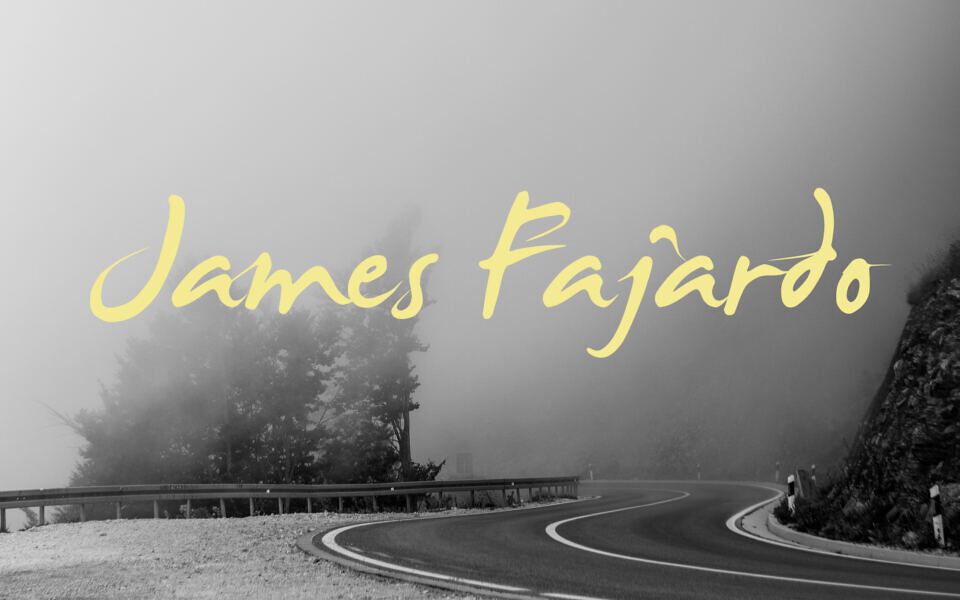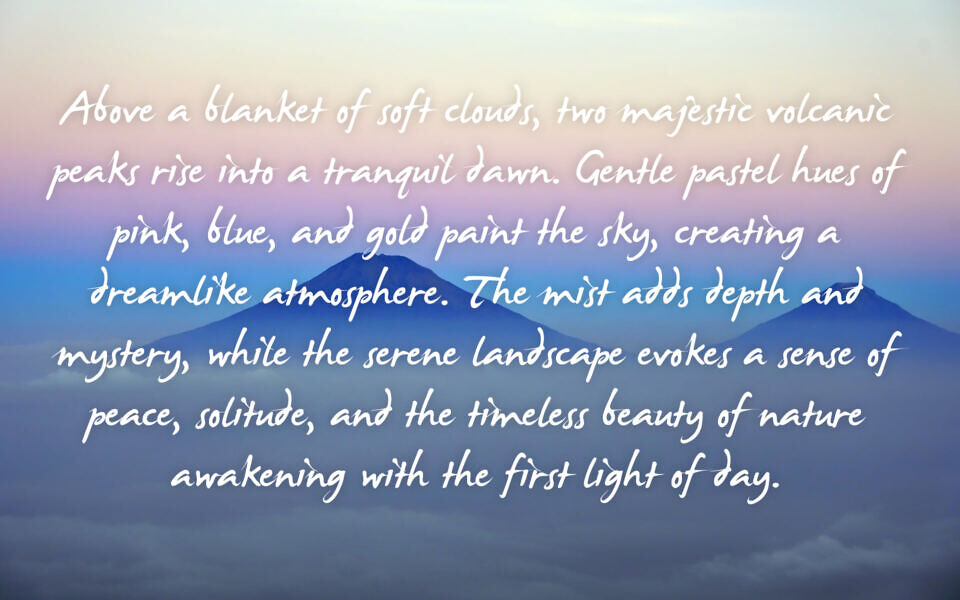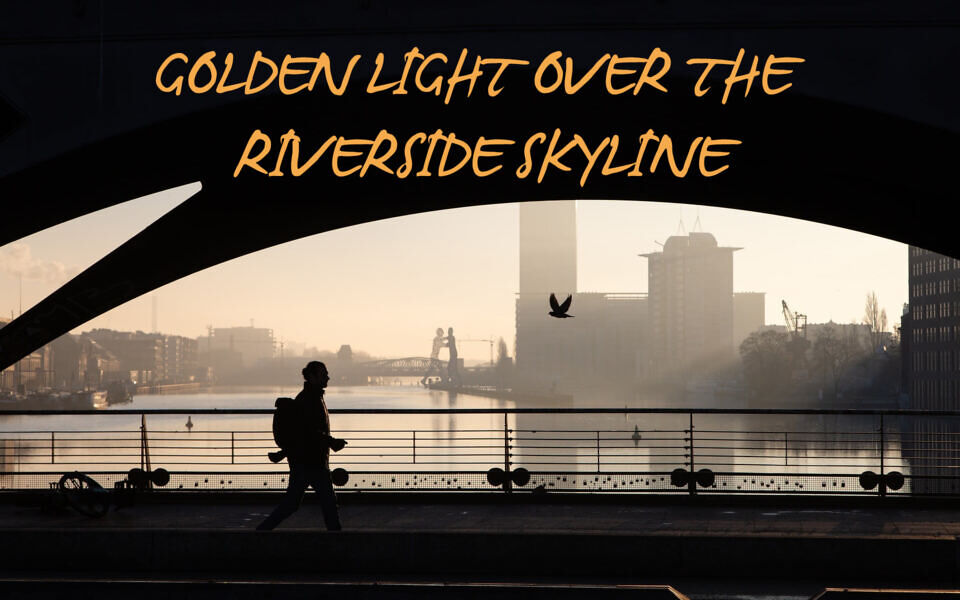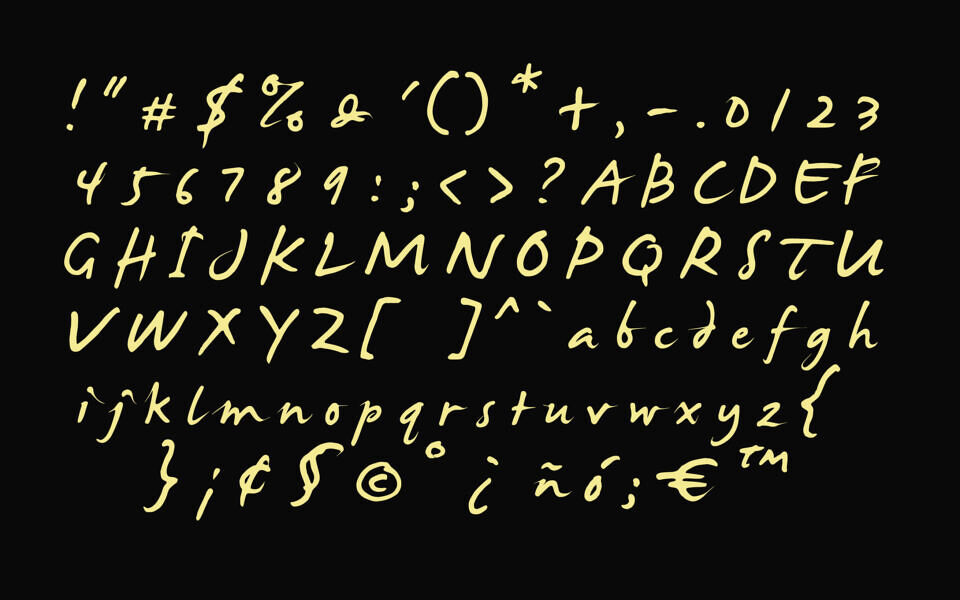
James Fajardo is a lively, expressive script display font based on the designer’s actual handwriting. Offering a casual yet dynamic rhythm, its fluid letterforms feature distinct hairline ink trails that add a natural, organic feel to headlines and short text blocks.